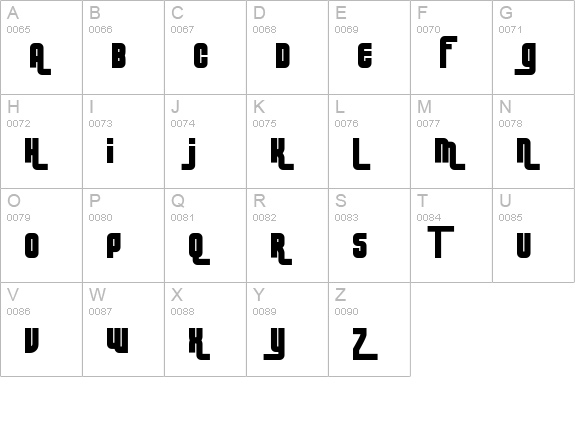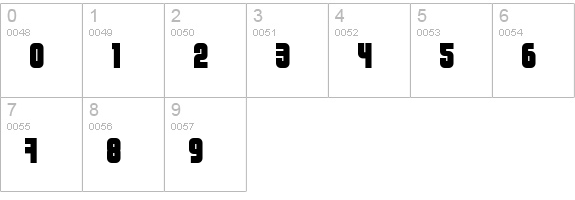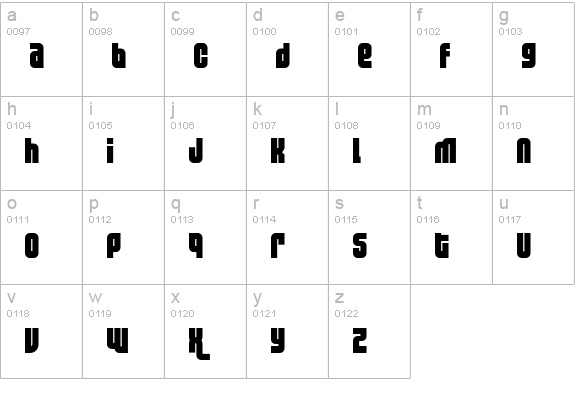
Lakmus Fenotype Font Details
Lakmus Fenotype font is a stunning display typeface that effortlessly combines elegance and modernity. Its unique and eye-catching design will instantly captivate any audience, making it perfect for various creative projects such as branding, logos, packaging, posters, and more. This font's versatility is truly remarkable, as it can adapt to both formal and casual settings with ease. Its clean lines and geometric shapes exude a sense of sophistication and professionalism, while its playful curves add a touch of whimsy and creativity. The free Lakmus Fenotype font is a true gem for designers and typographers alike. Its extensive character set includes uppercase and lowercase letters, numerals, punctuation marks, and special symbols, ensuring that you have everything you need to bring your designs to life. What makes Lakmus Fenotype font even more impressive is that it is freely available to download at FontsMarket.com. This means that you can access this remarkable font without any cost, allowing you to enhance your projects without breaking the bank. Whether you're a seasoned designer or just starting your creative journey, Lakmus Fenotype font is a must-have addition to your font collection. Its versatility, elegance, and the fact that it is free make it an irresistible choice for any design project. Download it now at FontsMarket.com and let your creativity soar to new heights.